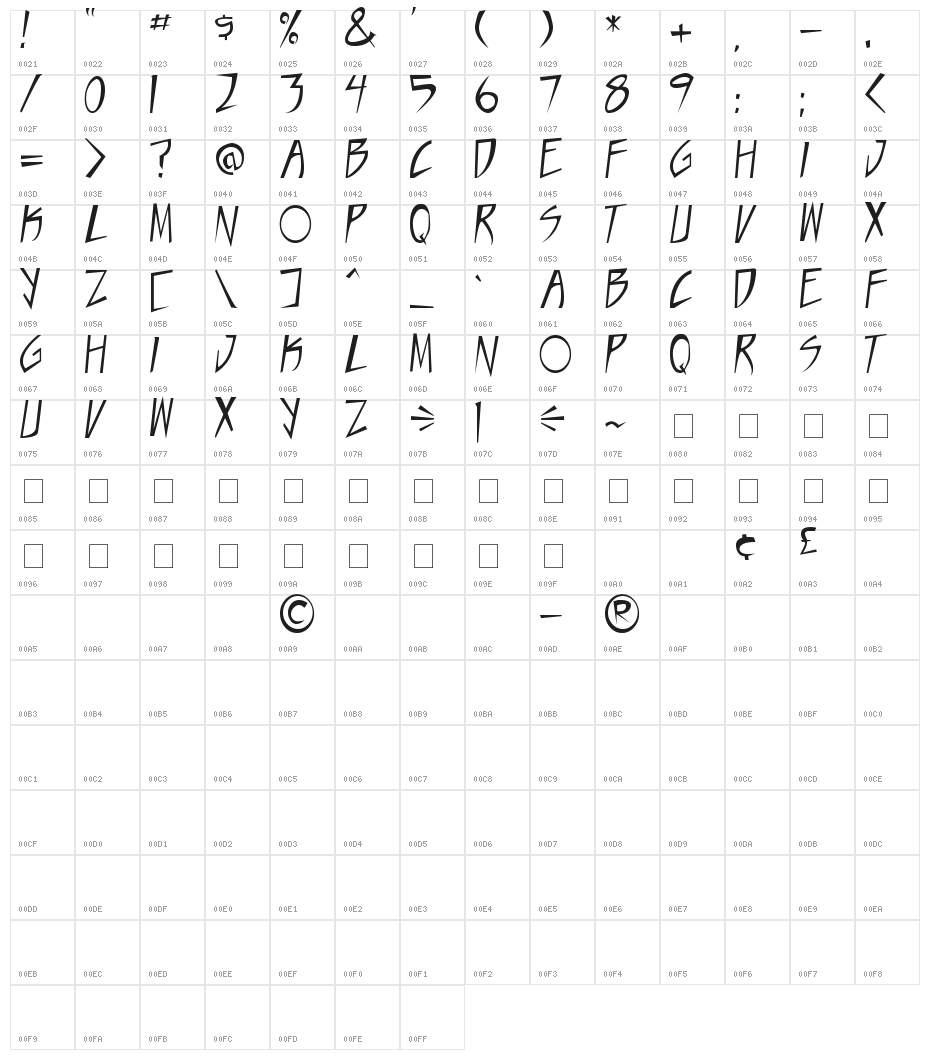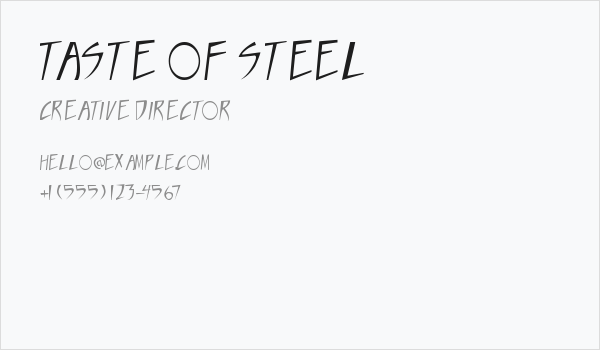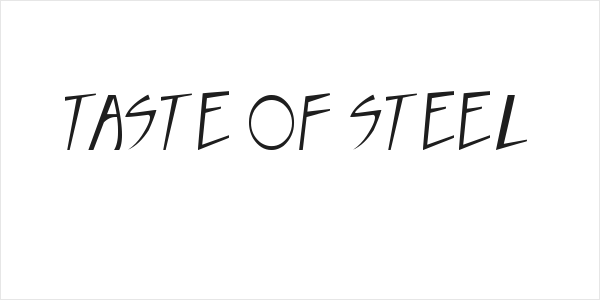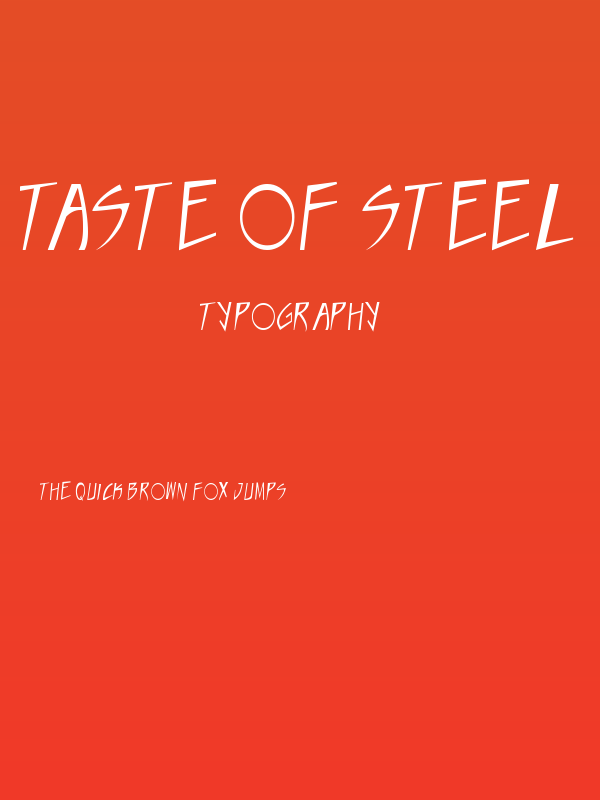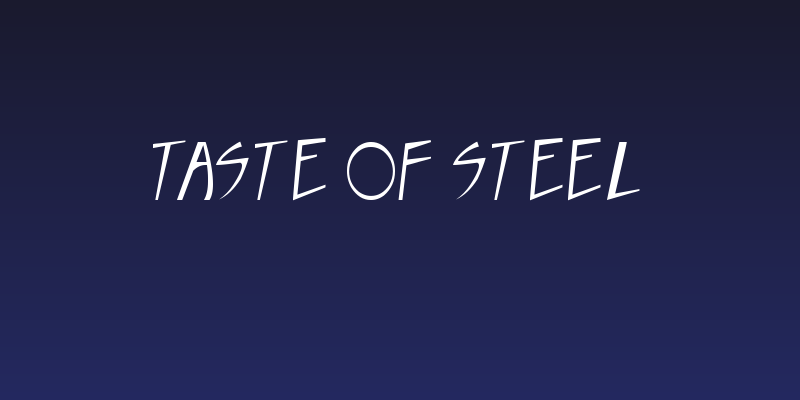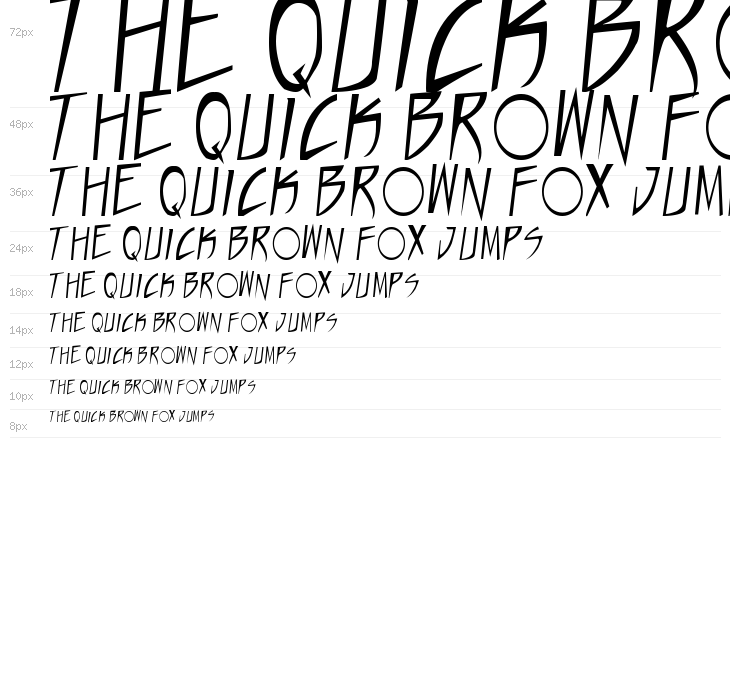
Taste of steel Font
Taste of steel Description
This font features a dynamic and edgy design, characterized by sharp angles and a slightly italicized stance that gives it a sense of motion and energy. The uppercase letters are bold and commanding, with a unique flair that makes each character stand out. The lowercase letters maintain the same angular style, providing consistency across the typeface. Numbers and special characters are designed with the same sharpness, ensuring a cohesive look. The overall appearance is modern and slightly aggressive, making it suitable for projects that require a bold statement.
| Proposed Projects | Ideal for branding, posters, video game titles, and any project needing a bold, modern touch. |